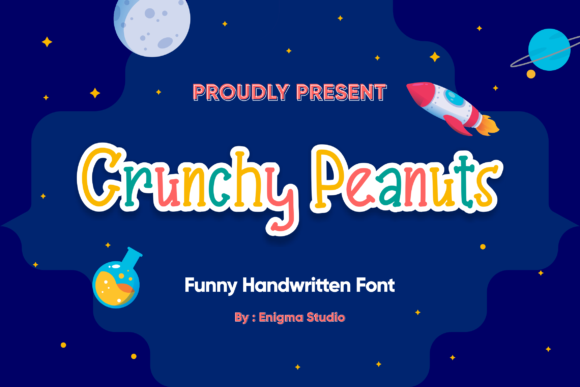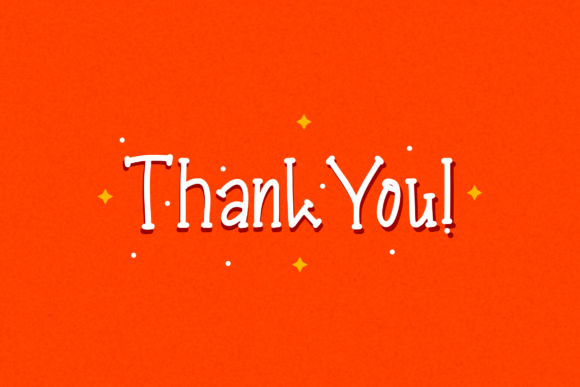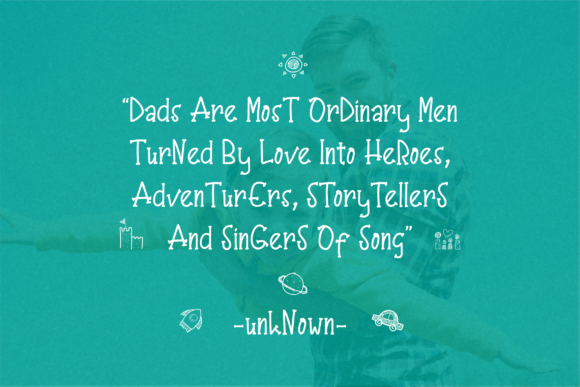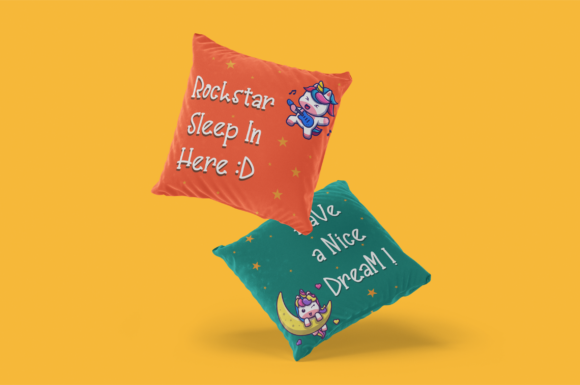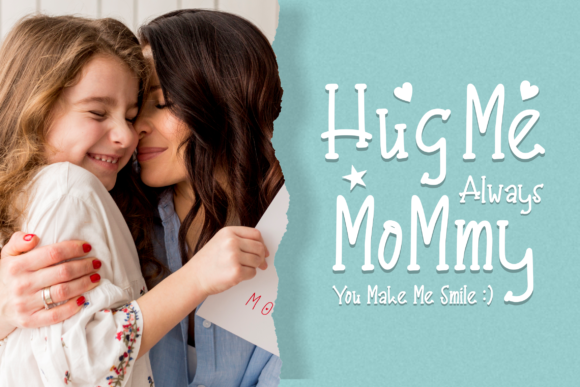
Crunchy Peanuts Font
About Crunchy Peanuts Font
Crunchy Peanuts is a cute, friendly and quirky handwritten font. It embodies playfulness and authenticity and is the perfect choice for any children activity or school project.